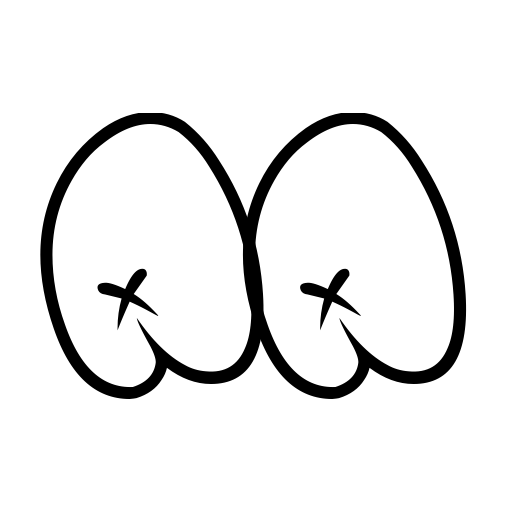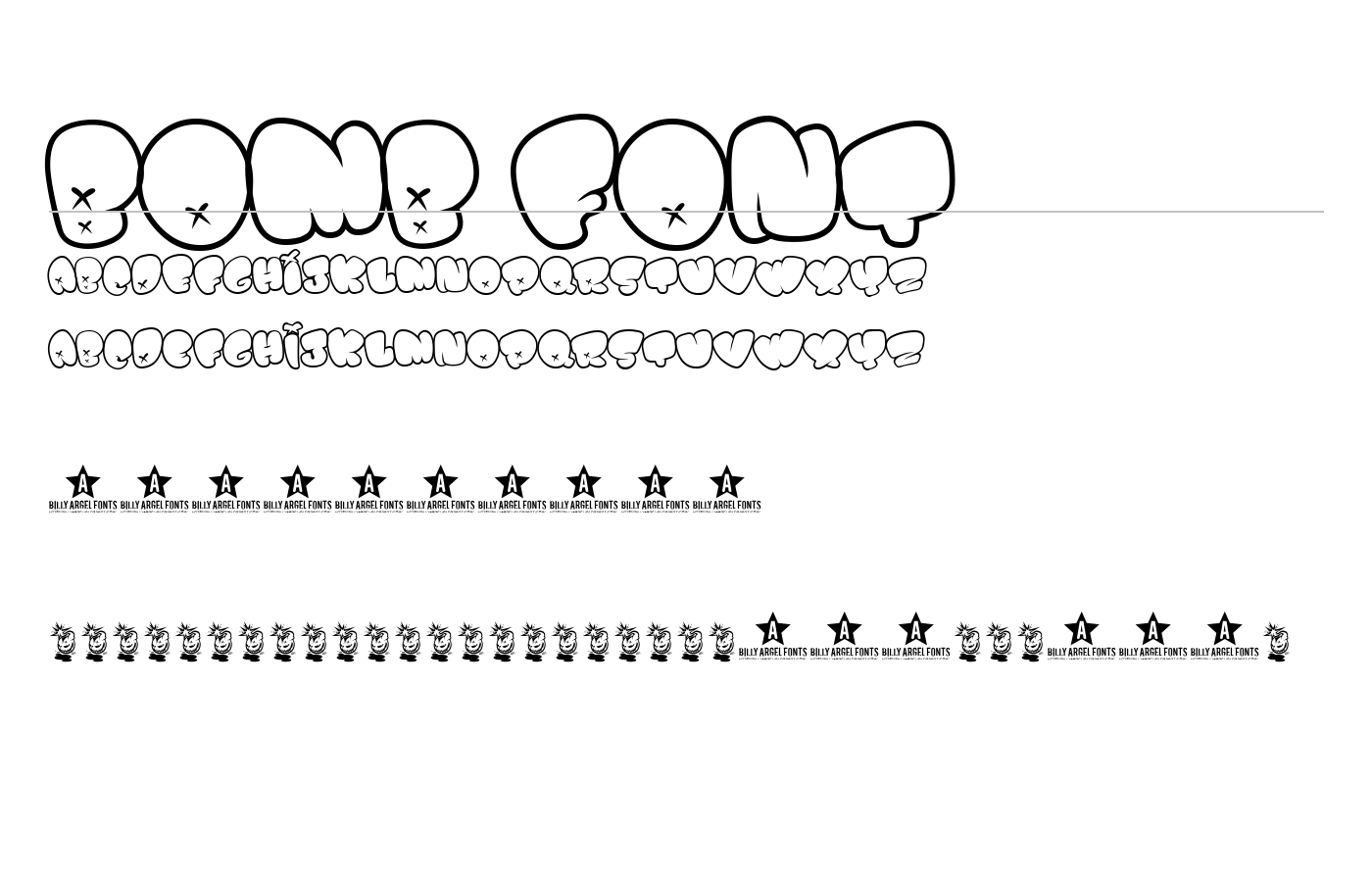
BOMB FONT is a playful, bold, and rounded display typeface with a hand-drawn, cartoonish style that gives it a fun and informal personality. Its thick, bubbly letterforms with quirky details like crossed-out eyes make it perfect for eye-catching logos, posters, or packaging aimed at a youthful and energetic audience. This font works best in creative, casual, and entertainment contexts where a lively and approachable vibe is desired.
BOMB FONT
About BOMB FONT